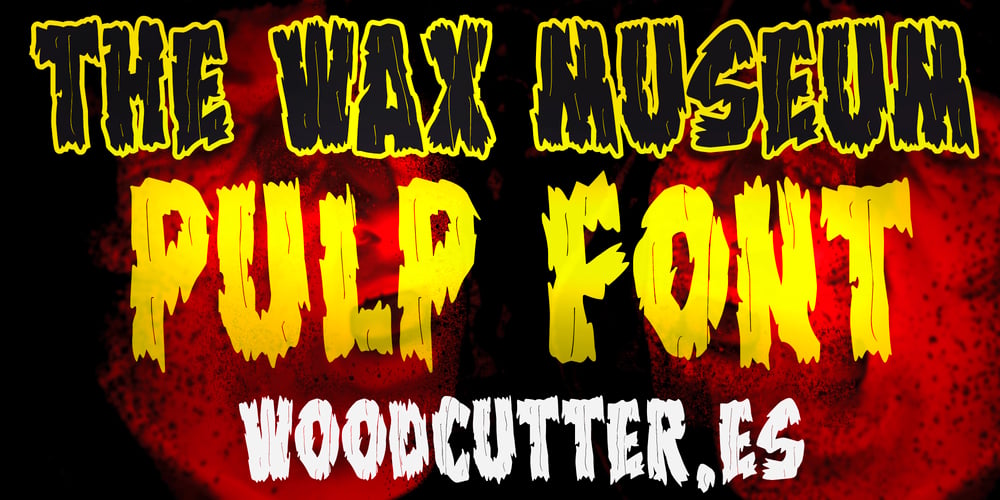
The Wax Museum Font Family was designed by Jordi Manero and published by Woodcutter. The Wax Museum contains 1 styles and family package options. “The Wax Museum” is a typeface with slightly torn uppercase letters, reminiscent of classic horror and pulp movie posters from years gone by. With its worn and macabre aesthetic, this font is perfect for capturing the eerie atmosphere of wax museums and horror tales. Ideal for movie titles, book covers, and graphic designs seeking a retro and spooky touch. “The Wax Museum” adds a nostalgic and terrifying air to any project, transporting viewers to the golden age of horror cinema and pulp publications. –Uppercase